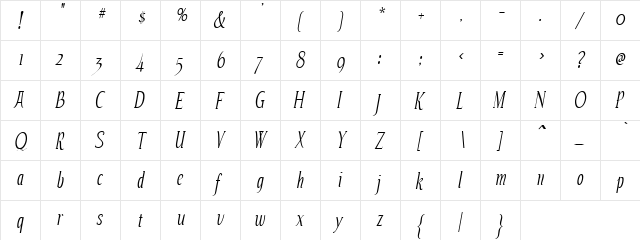
Ebbs Prewritten Regular
Design Context for Ebbs Prewritten Typeface
Ebbs Prewritten is a composed and adaptable typeface that performs quietly and consistently across a wide range of design contexts.